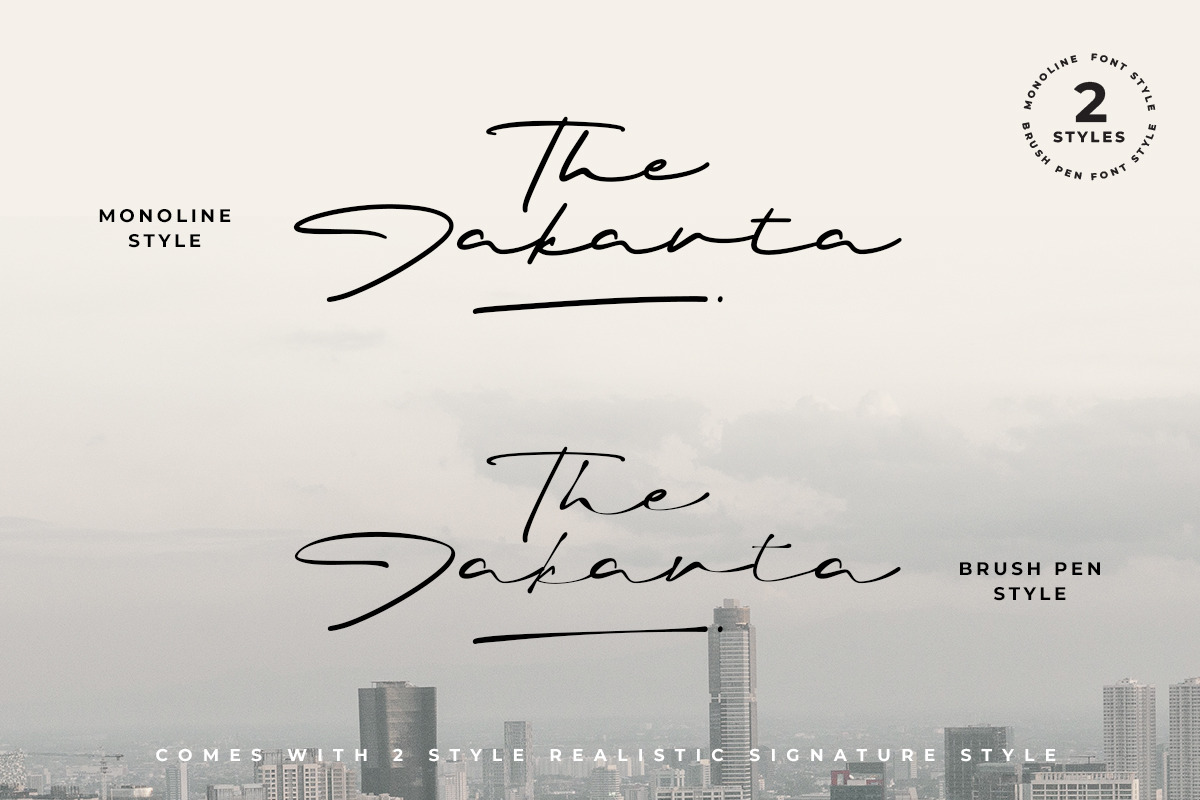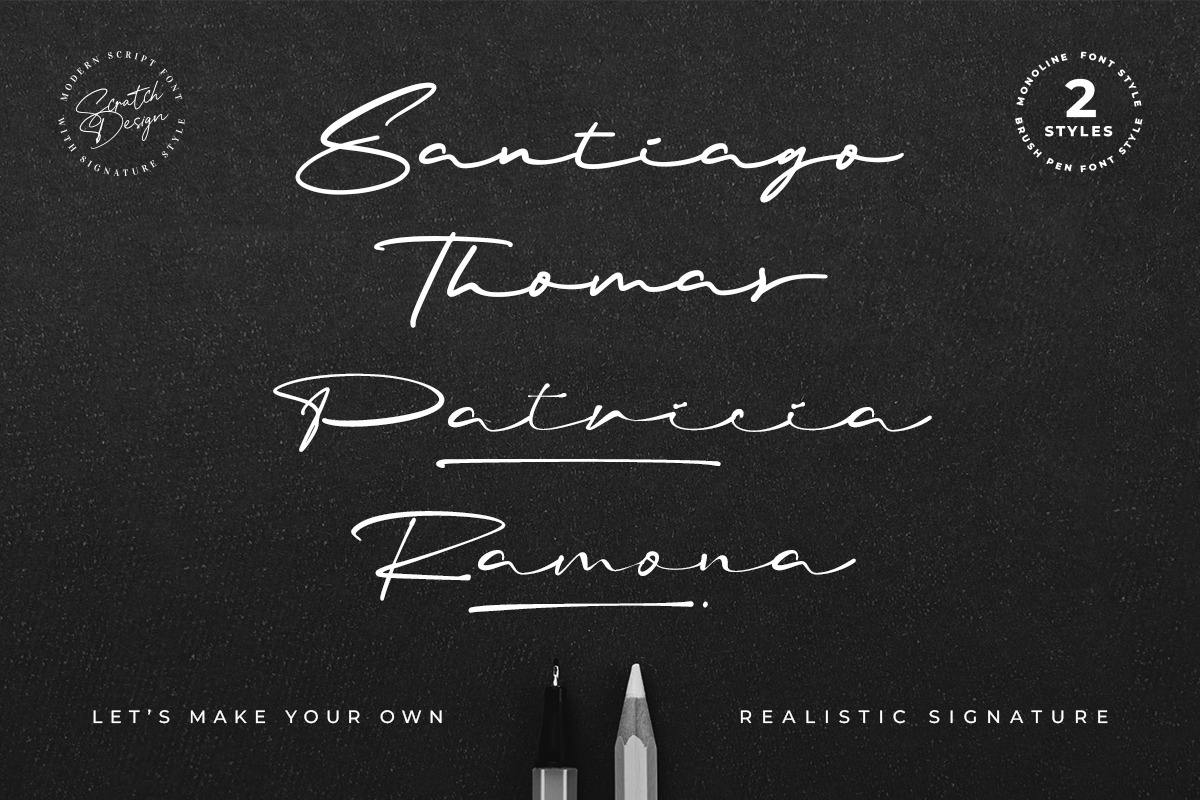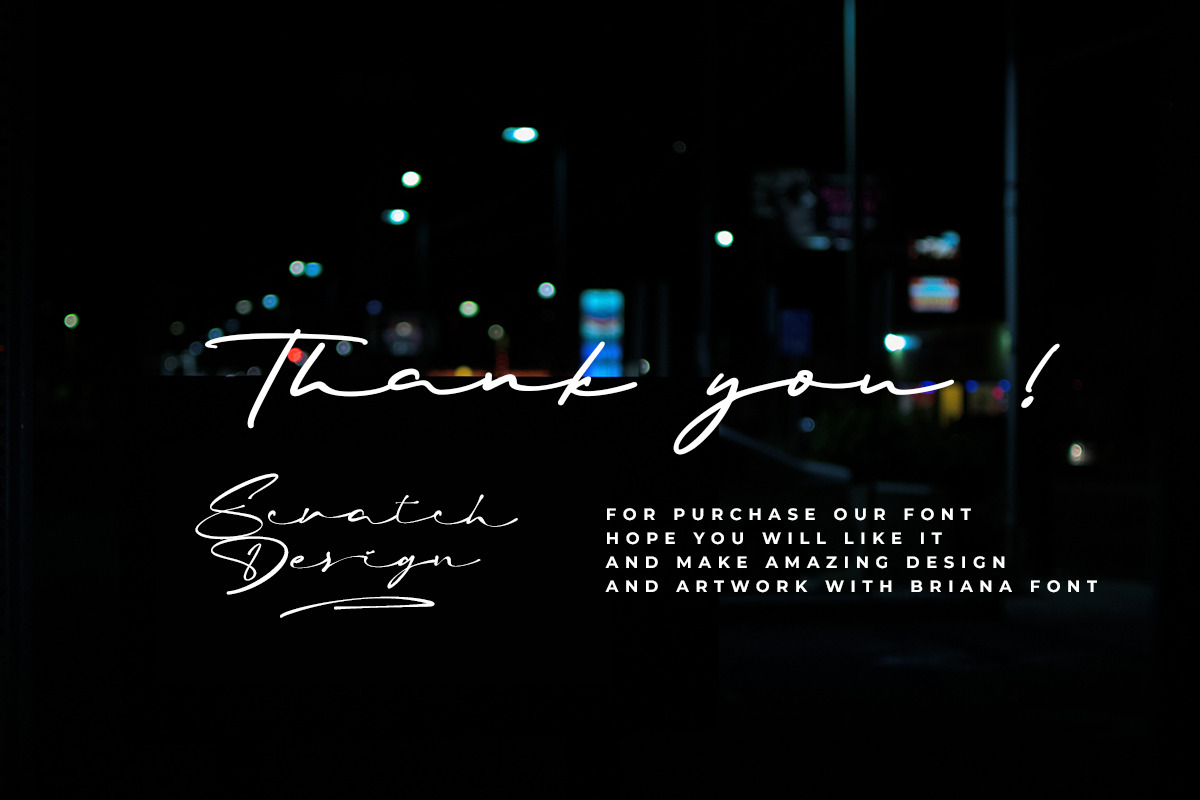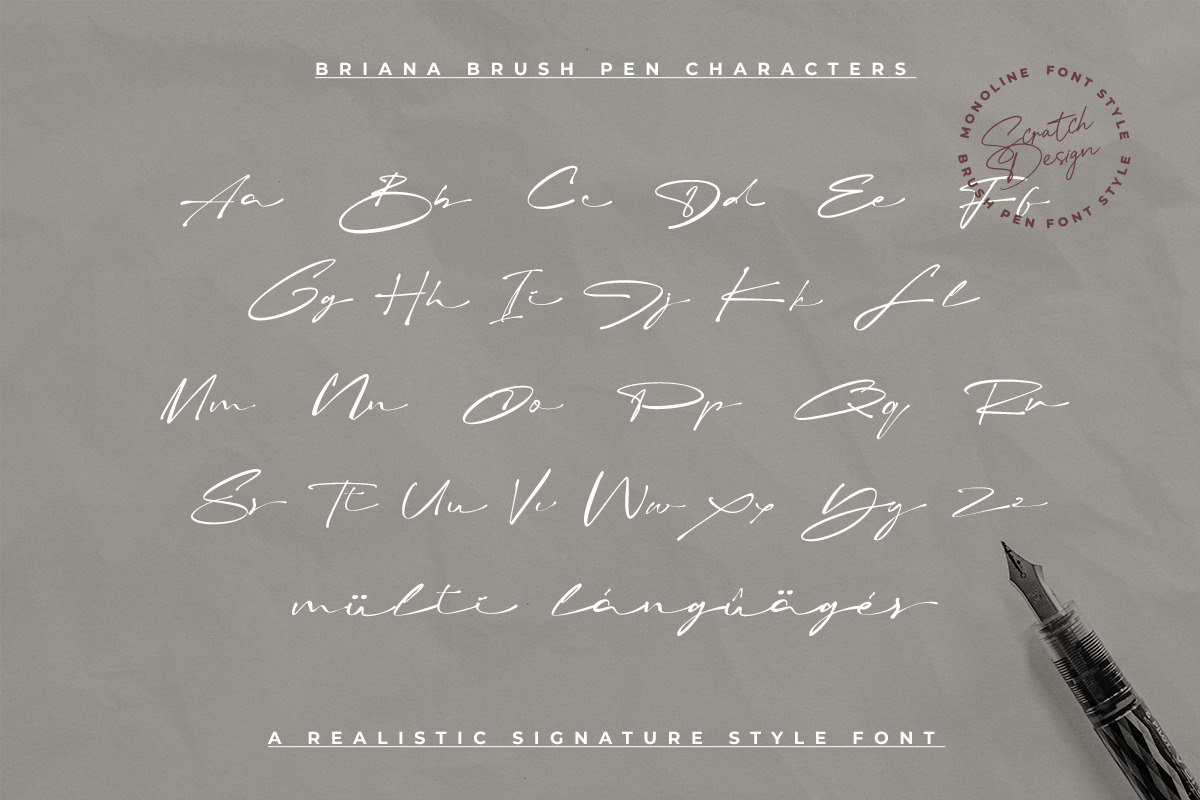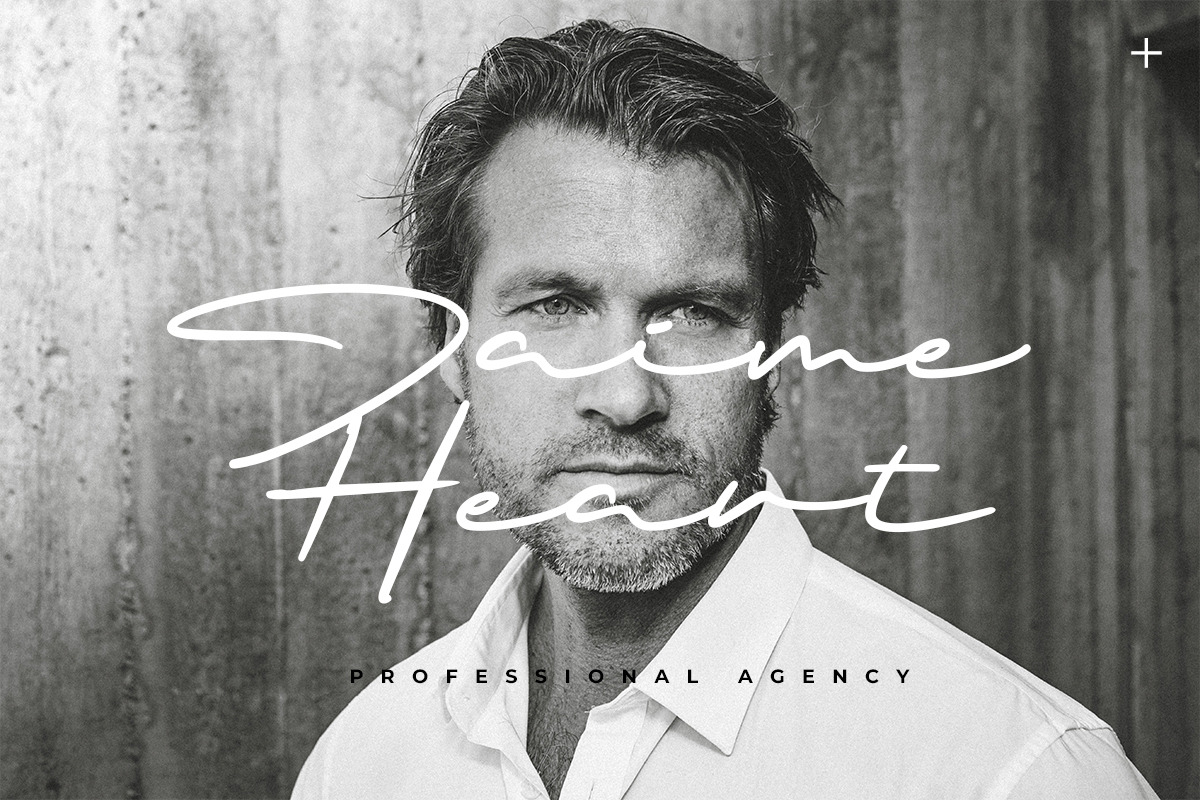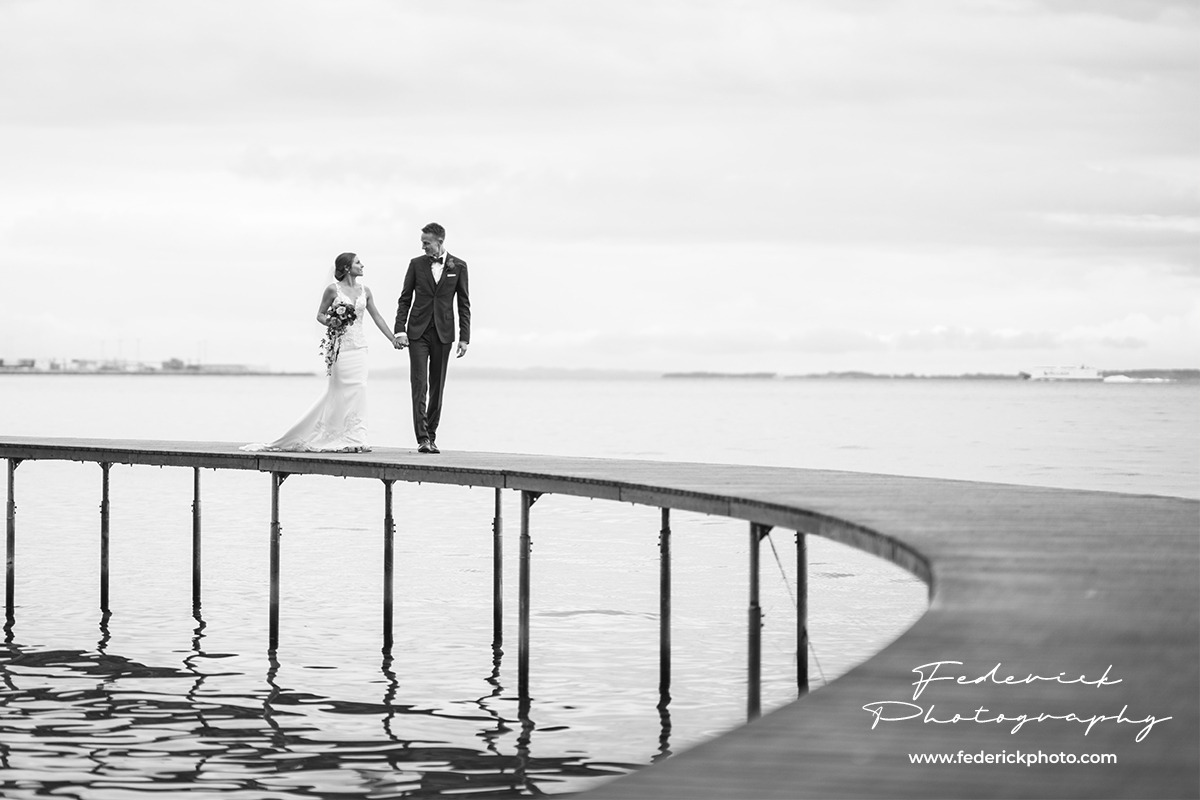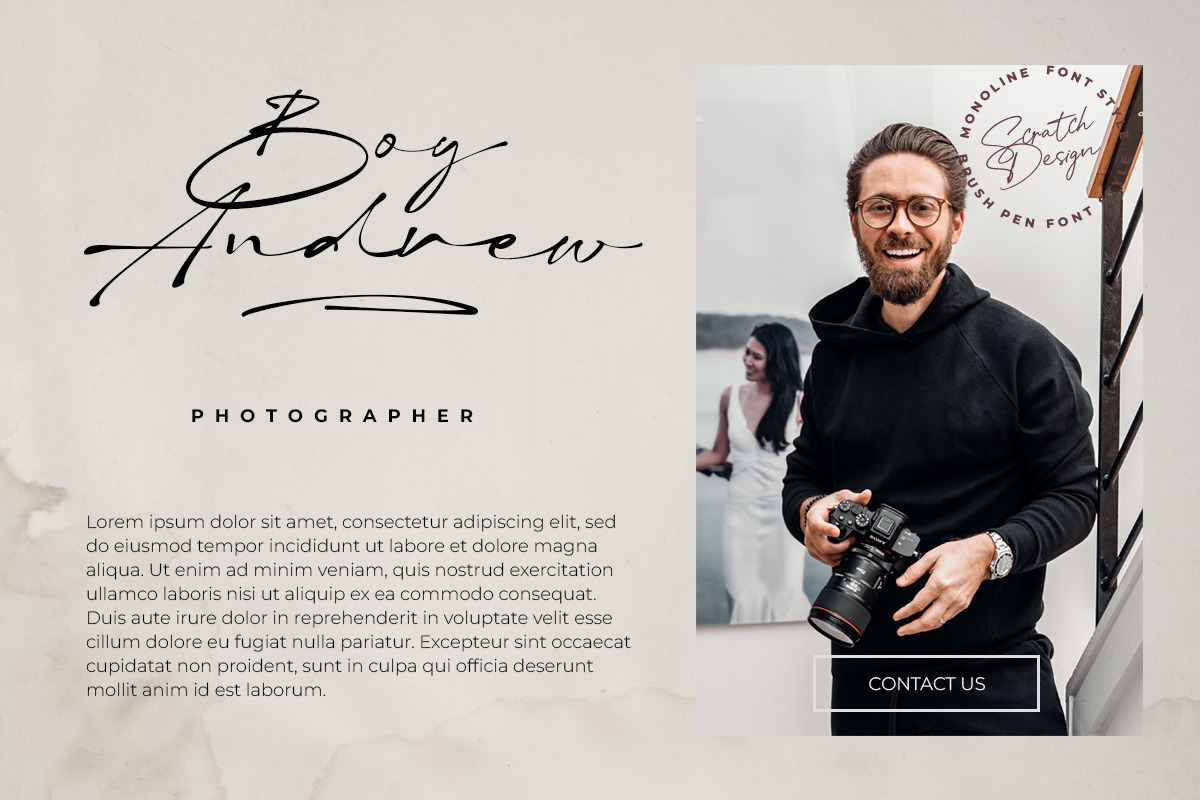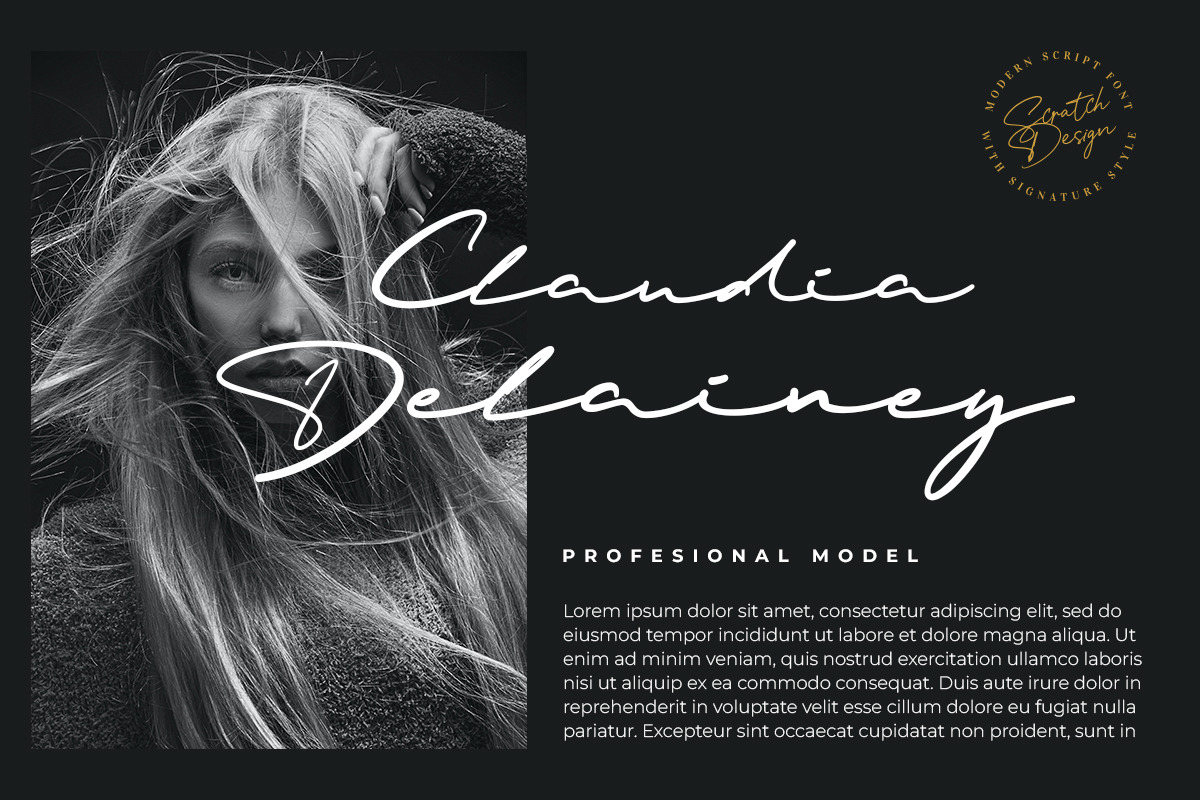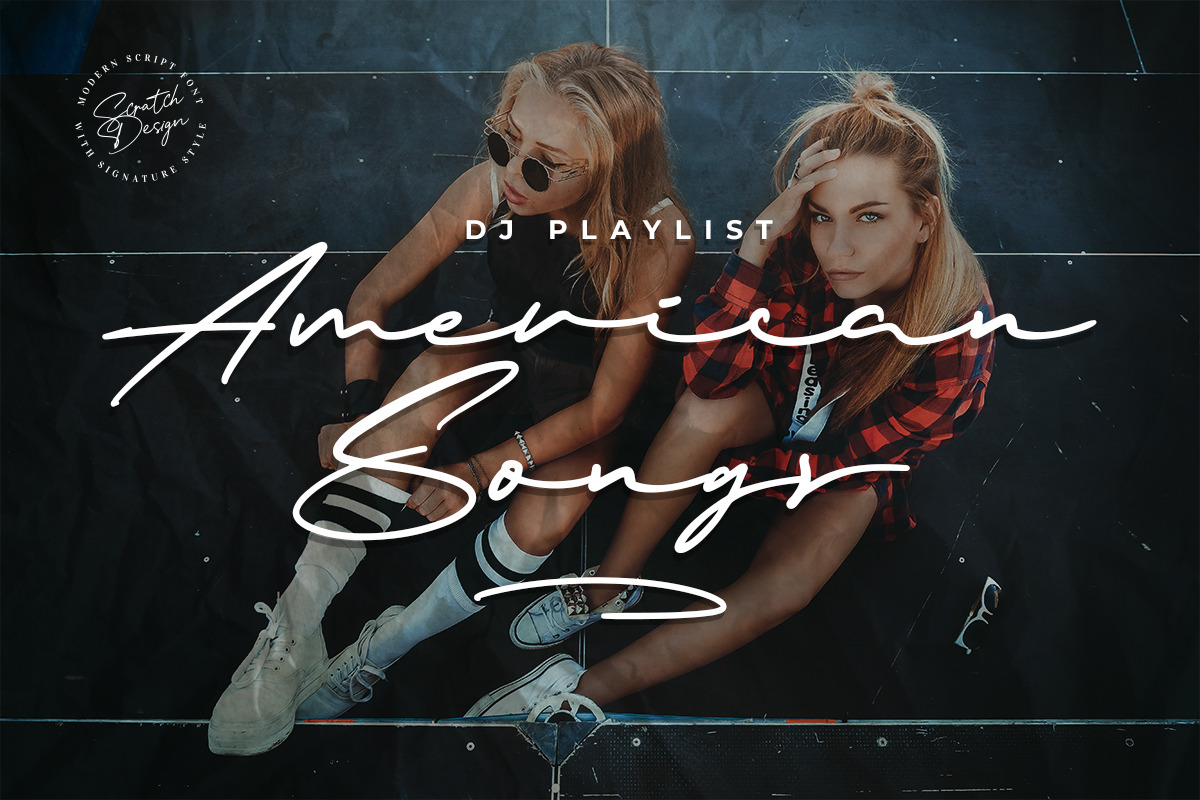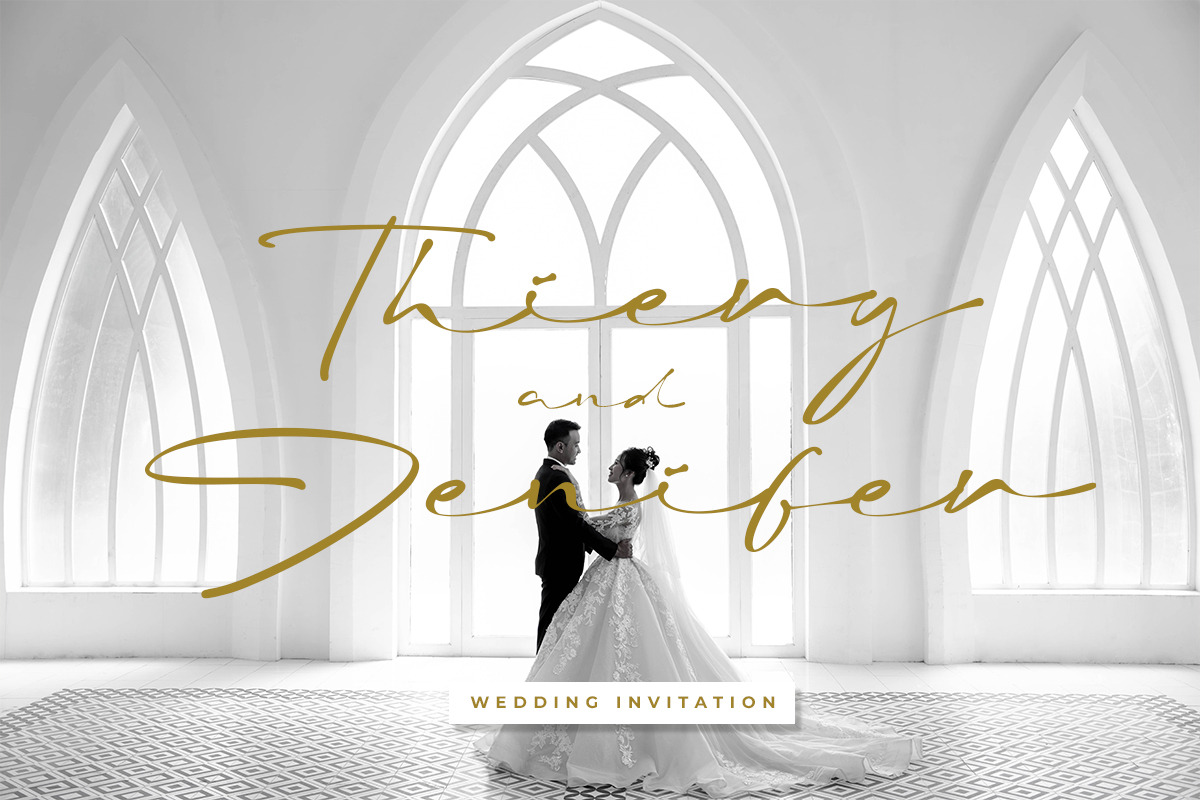
Briana | 2 Styles Signature Font
Briana is a realistic signature font, that comes in 2 styles (Monoline style & Brush pen style). Briana Font is perfect for you to create a realistic signature logo, so easy to use and you can combine it with the swashes to make your signature more natural. Briana font is also perfect for different projects such as logos & branding, invitation, quote text, stationery, wedding invitation designs, social media posts, advertisements, website & landing page, product packaging, product designs, label, photography, watermark, and more like special events.